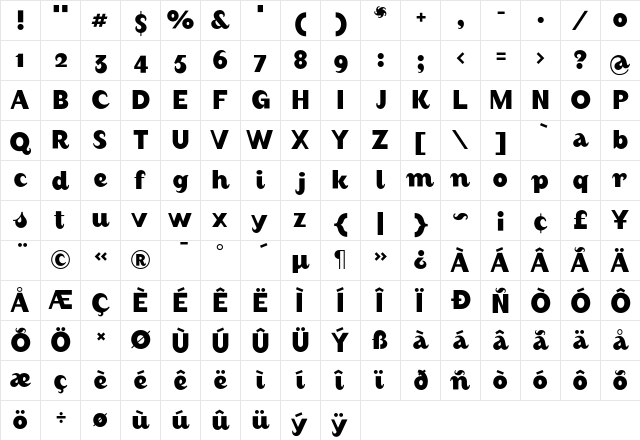
August BoldAlternate
Design Context for August Typeface
August is a composed and adaptable typeface that performs quietly and consistently across a wide range of design contexts. The heavy weight commands attention and anchors typographic hierarchies.